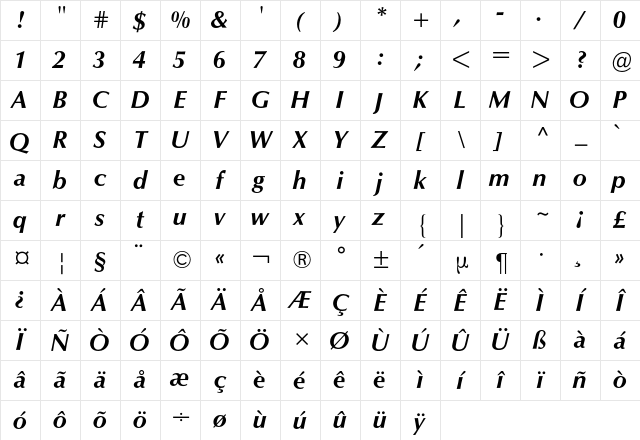
Optima BQ Regular
Optima BQ Family
Optima BQ Regular
Design Context for Optima BQ
Optima BQ is a composed and adaptable typeface that performs quietly and consistently across a wide range of design contexts.